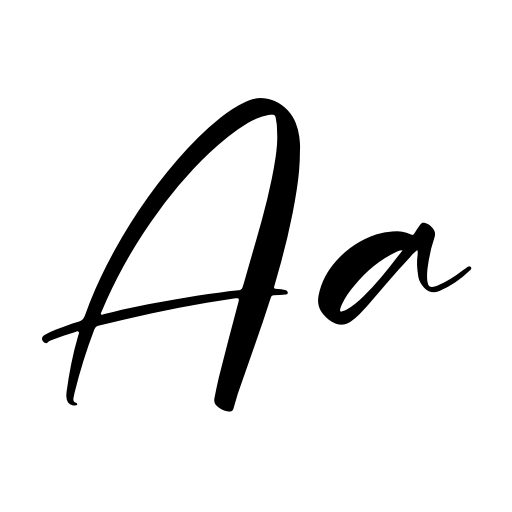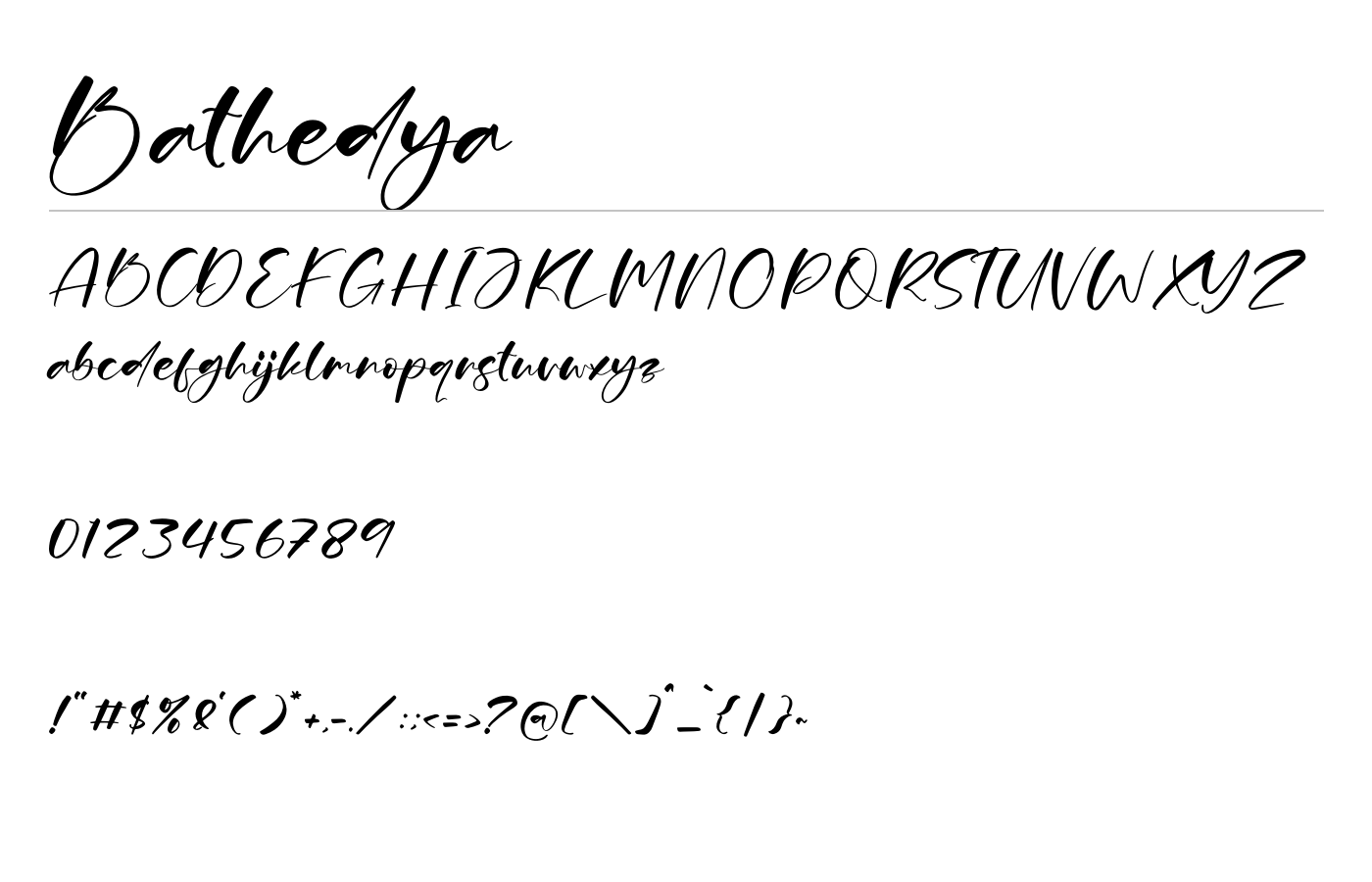
Bathedya is an elegant script font with a natural, handwritten feel characterized by smooth, flowing strokes and moderate contrast. Its refined and stylish letterforms make it perfect for luxury branding, invitations, and creative headlines where a personal touch and sophistication are desired. This font shines in designs that aim to convey warmth, creativity, and a touch of modern elegance.
Bathedya Font
About Bathedya Font
| Font family | Bathedya Font |